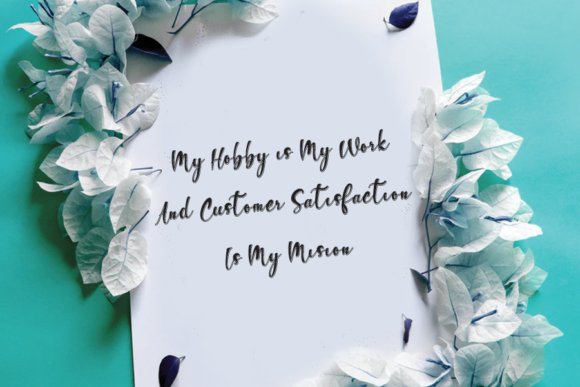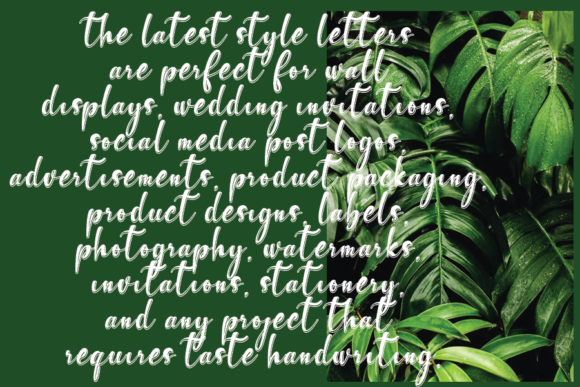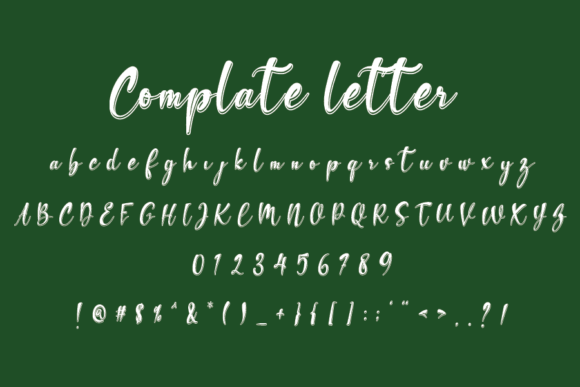
Love by Love Font: Free Download Now
Introduction to Love by Love Font
Love by Love is an exquisite handwritten font, masterfully designed to become a true favorite.
Key Features of Love by Love Font
Why Choose Love by Love Font?
Love by Love Font offers exceptional quality and versatility, making it a valuable addition to your design toolkit. Whether you’re creating for personal projects or commercial use, Love by Love Font delivers professional results.